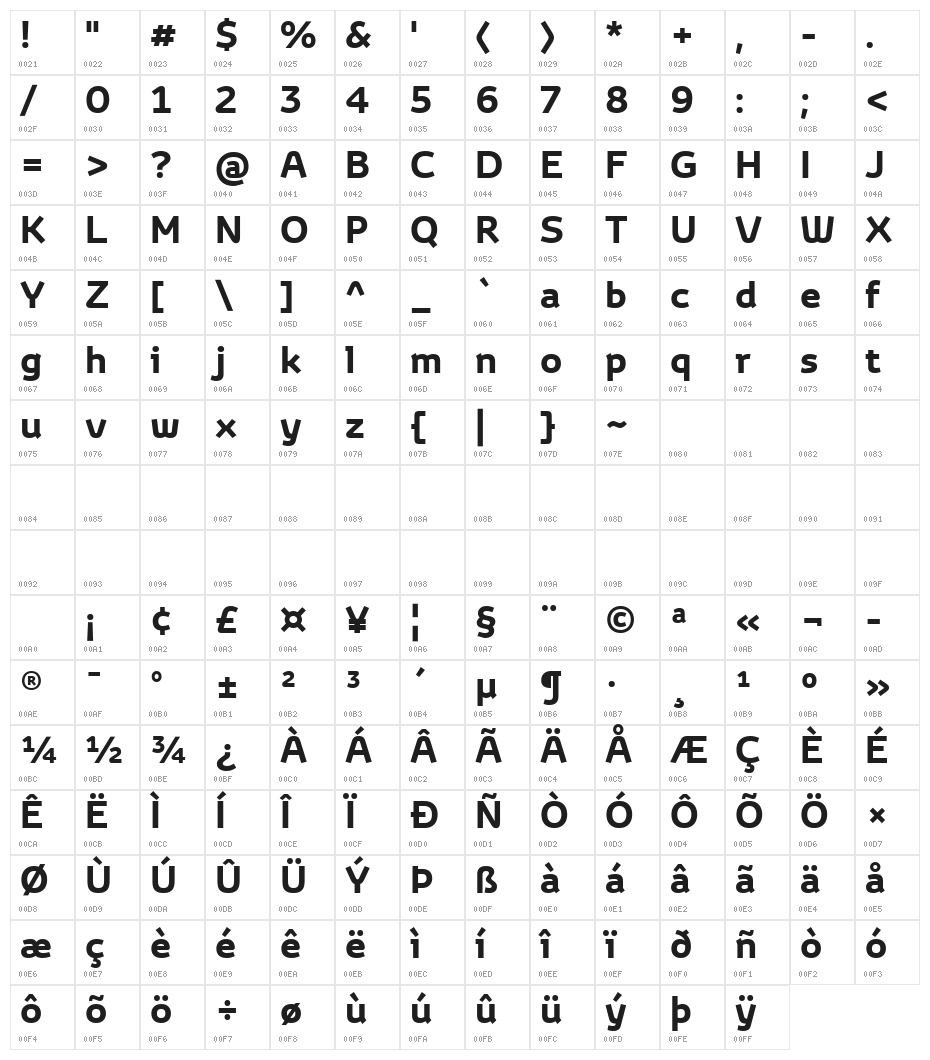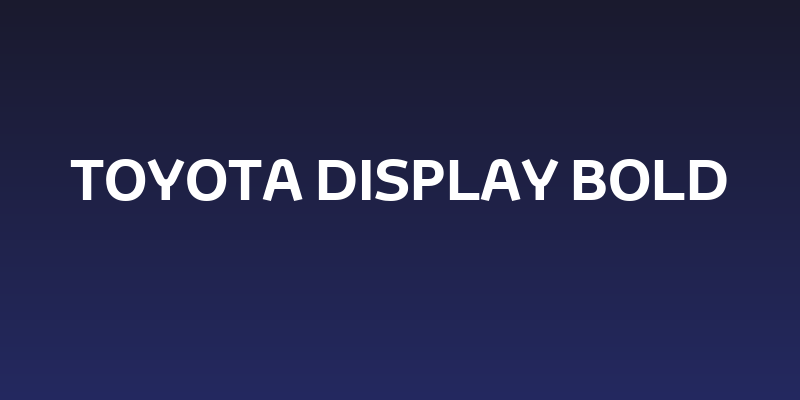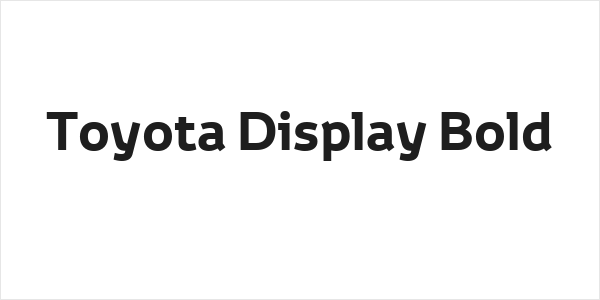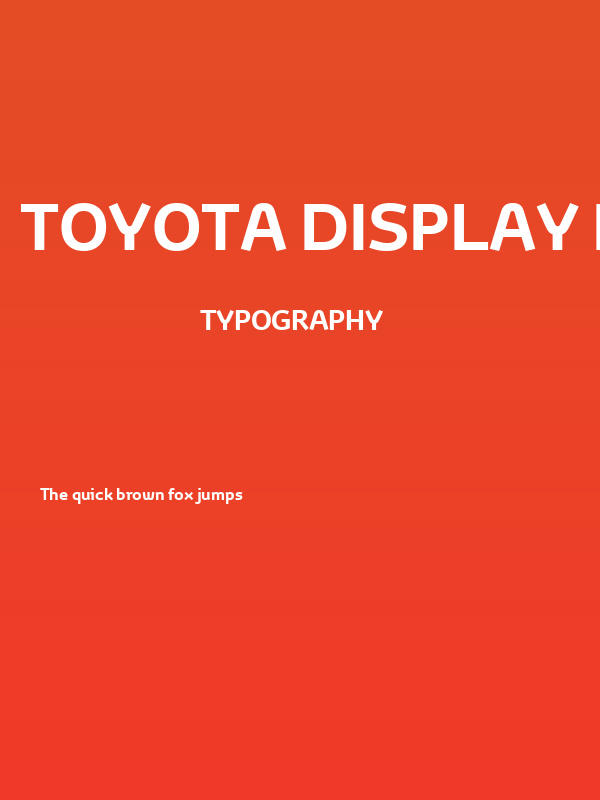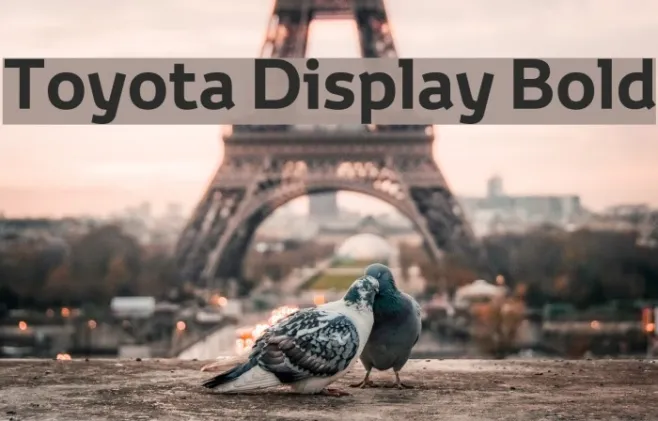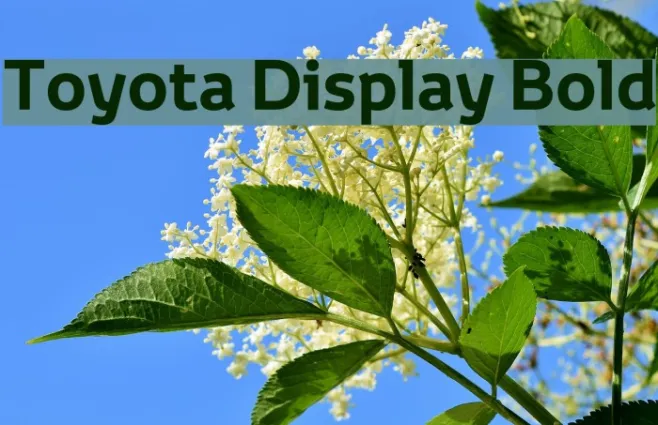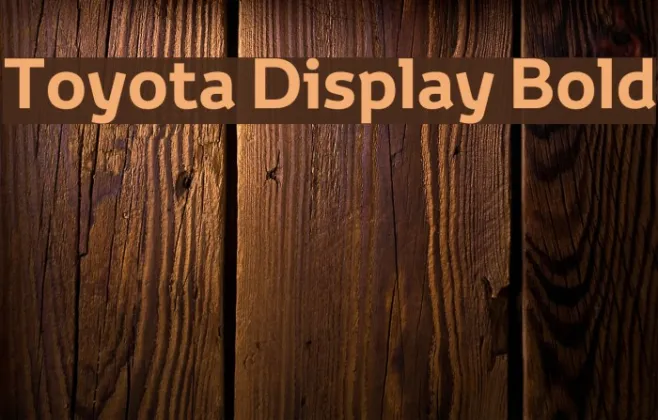
Toyota Display Bold Font
Toyota Display Bold Description
This font exhibits a bold and modern sans-serif style, characterized by clean lines and a strong presence. The uppercase and lowercase letters maintain a consistent weight, providing a uniform appearance across all characters. The numerals are clear and easily distinguishable, making them suitable for various applications. The special characters are well-defined, adding versatility to the font's usage. The overall design is sleek and contemporary, making it ideal for projects that require a bold and impactful visual statement.
| Use Case | Headlines, Logos, Advertising |
| Proposed Projects | Ideal for branding, advertising, headlines, and digital media projects requiring a bold statement. |